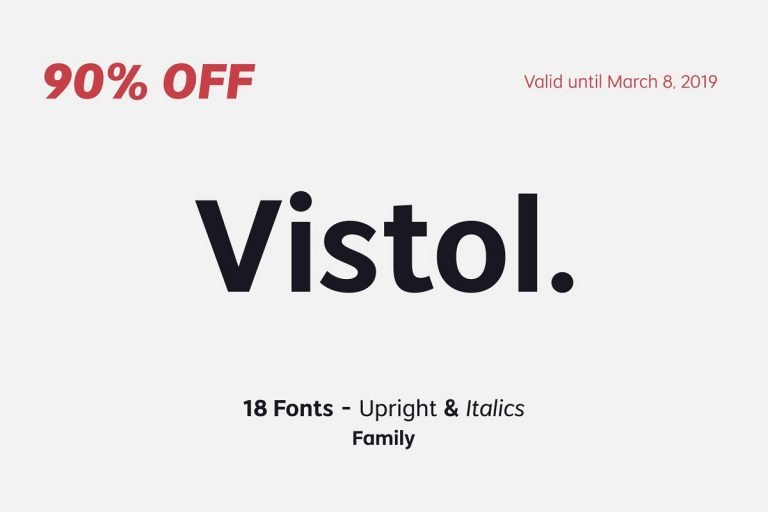
Vistol Sans Latin Pro Family
Thank you for looking Vistol Sans Light Latin Pro Font. It comes in 18 weights, 9 uprights and its following with italics. Latin Pro Accent for Support European languages, Extended Latin A, Extende Latin B, Punctuation, Number, Currency Symbols, etc. Low-contrast stroke makes it suitable for printing, packaging, articles, titles, editorials, publishing, logos, branding, small or large text usage.